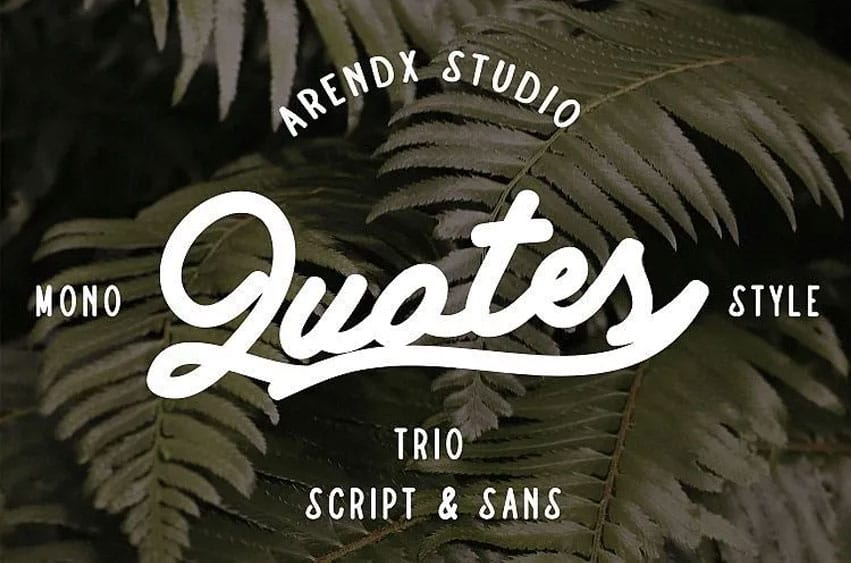
Quotes Trio Font here at where are a new trio of fonts; script and sans all combined. Our MONSTERALL script font has a texture that has never seen before brushed up against a new type of slanting wordt. This font makes it perfect for vintage aesthetics in people looking for crisp and neat designs.
This is Quotes Font Trio. It has a unique aligned feeling that combines script and sans serif. It is hard to describe this type of font in words, but the (for example) combination ‘MG’ has been allowed to be both elegant and airy thus achieving an unprecedented effect on upper case script letters.
Quotes is a perfect choice for people who want an incomparable handwriting or logo. This is exactly what I am looking. Sans script, how does it work? No one has ever tried to combine these two different styles before in the space of lettering.